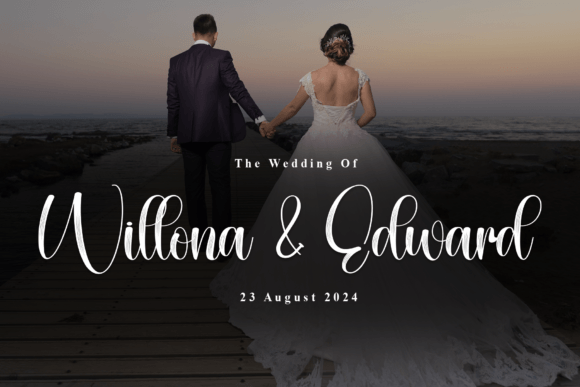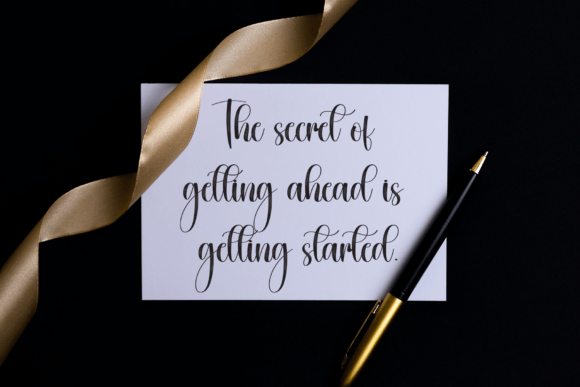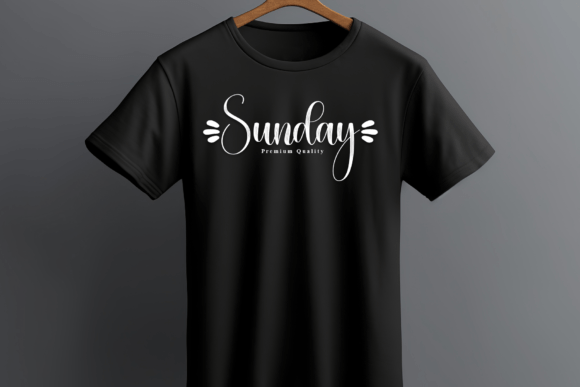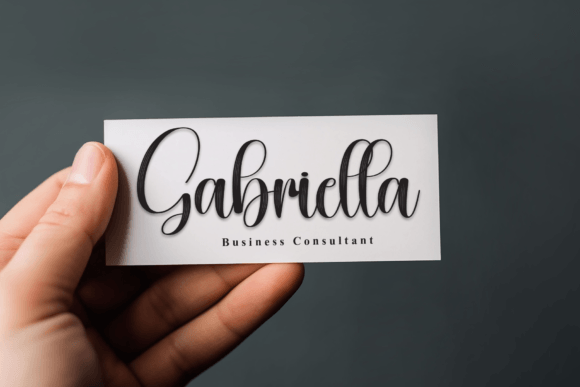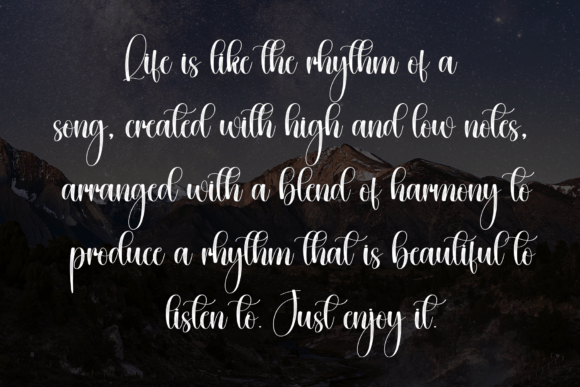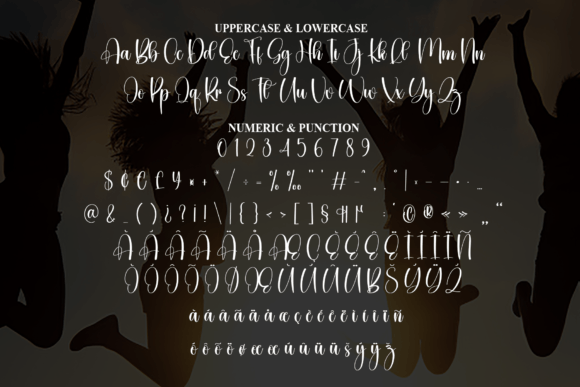
The Joy of Happiness Font: A Playful Addition to Your Design Toolbox
I still remember the design project that led me to discover the Happiness font. I was working on a whimsical invitation for a friend’s birthday party, and I was struggling to find the perfect font to match the playful theme. That’s when I stumbled upon Happiness, a cheerful handwritten font that instantly brought a smile to my face. Its unique blend of thin and bold lines, combined with its friendly and approachable style, made it an instant favorite.
An Honest Review of Happiness Font
- ✅ The playful combination of thin and bold lines adds a touch of whimsy to any design
- ✅ The font’s friendly style makes it perfect for invitations, cards, and other fun projects
- ✅ It’s incredibly versatile and can be used for both digital and print designs
- ✅ The font’s unique personality shines through in its subtle imperfections and quirks
- ⚠️ Some users may find the font’s playful style too informal for certain projects
- ⚠️ The font’s bold lines can be overwhelming if not balanced with sufficient white space
The Story Behind Happiness Font
Happiness Font was designed with the intention of spreading joy and positivity through typography. Its creator, a freelance designer with a passion for handwriting, wanted to craft a font that would bring a smile to people’s faces. With its unique blend of thin and bold lines, Happiness Font is the perfect tool for designers, crafters, and creative hobbyists looking to add a touch of whimsy to their projects.
| What type of projects is Happiness Font best suited for? | Happiness Font is perfect for invitations, cards, and any fun projects that require a playful touch. |